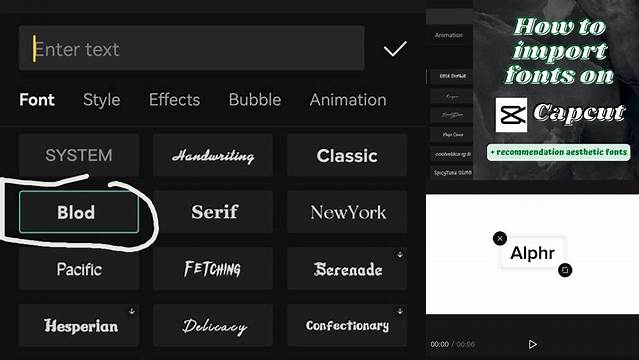
Best Fonts For CapCut Russian Videos: A Complete Guide
Hey guys! Are you looking to add some Russian flair to your CapCut projects? Choosing the right font can make all the difference, transforming your videos from ordinary to extraordinary. In this comprehensive guide, we'll dive deep into the world of fonts for CapCut Russian, exploring everything from font selection to installation and even some creative ideas. Let's get started and make your videos shine with the beauty of the Russian language!
Why Fonts Matter in Video Editing
Before we jump into specific fonts, let's take a moment to appreciate the crucial role fonts play in video editing. Fonts are more than just characters on a screen; they are visual storytellers. They convey emotions, set the tone, and enhance the overall message of your video. Think of it this way: a playful script font might be perfect for a fun travel vlog, but it would feel completely out of place in a serious documentary. The right font aligns with your video's theme and target audience, creating a cohesive and engaging viewing experience. For Russian-language content, selecting fonts that not only display Cyrillic characters correctly but also capture the essence of Russian culture and aesthetics is essential. Imagine using a generic, sans-serif font for a video about Russian history – it simply wouldn't do justice to the subject matter. The font should evoke a sense of authenticity and cultural richness. Furthermore, readability is paramount. A beautiful font is useless if your audience can't easily read the text. Consider the font size, spacing, and contrast against the background. Choose fonts that are clear and legible, even on smaller screens. Finally, consistency is key. Stick to a limited number of fonts throughout your project to maintain a professional and polished look. Mixing too many fonts can create visual clutter and distract viewers from your message. By carefully considering these factors, you can harness the power of fonts to elevate your video editing and create content that truly resonates with your audience.
Top Font Choices for CapCut Russian
Now, let's get to the exciting part: exploring the best font choices for your CapCut Russian projects! When selecting fonts, we need to consider not only their aesthetic appeal but also their readability and compatibility with the Cyrillic alphabet. Here are some top contenders, categorized for your convenience:
Serif fonts, characterized by the small strokes or "serifs" at the end of each character, often evoke a sense of tradition, elegance, and formality. They are excellent choices for projects that require a classic or sophisticated touch. One standout serif font for Russian is "Lora." Lora is a well-balanced and contemporary serif with roots in calligraphy, making it incredibly legible on screen. Its elegant curves and balanced weight lend a refined feel, perfect for documentaries, historical content, or videos that aim for a timeless aesthetic. Think of it as the go-to font for subtitles in a film adaptation of a classic Russian novel. Another worthy contender is "Playfair Display." This font exudes sophistication and grandeur, ideal for titles and headings. Its high contrast and delicate serifs create a visually striking effect, making it a great choice for opening credits, elegant presentations, or videos that require a touch of luxury. Imagine using Playfair Display for the title cards of a high-end fashion vlog showcasing Russian designers. However, remember that serif fonts can sometimes be less legible in smaller sizes or on lower-resolution screens, so always test them out before committing to them. Consider the overall design of your video and choose a serif font that complements your visual style and enhances readability. Ultimately, the right serif font can add a touch of class and sophistication to your Russian-language videos, making them more engaging and impactful.
Sans-serif fonts, known for their clean and minimalist design, are an excellent choice for modern and contemporary projects. They lack the serifs found in serif fonts, giving them a streamlined and legible appearance, especially on digital screens. For Russian content, several sans-serif fonts stand out for their clarity and compatibility with Cyrillic characters. "Open Sans" is a highly popular and versatile font that works well in a variety of contexts. Its neutral and friendly appearance makes it ideal for body text, captions, and subtitles. Open Sans is incredibly legible, even in smaller sizes, ensuring that your audience can easily read your Russian text. It’s a reliable choice for tutorials, explainer videos, and any content where clarity is paramount. Another excellent option is "Roboto." Roboto is a modern and geometric sans-serif font that offers a clean and professional look. It’s designed for optimal readability on screens, making it a great choice for website content, mobile apps, and, of course, video editing. Roboto's crisp lines and balanced proportions make it suitable for a wide range of projects, from tech reviews to educational videos. For a slightly bolder and more impactful sans-serif option, consider "Montserrat." Montserrat is a geometric sans-serif font inspired by the urban typography of Buenos Aires. Its strong character and clear letterforms make it a great choice for titles, headings, and call-to-actions. Montserrat can add a touch of modern sophistication to your Russian-language videos, making them stand out from the crowd. When choosing a sans-serif font for your CapCut Russian project, prioritize readability and ensure that the font complements the overall aesthetic of your video. A well-chosen sans-serif font can provide a clean and contemporary look, enhancing the visual appeal and clarity of your content.
Script Fonts
Script fonts, which mimic the flowing strokes of handwriting, can add a touch of elegance, personality, and warmth to your video projects. They are particularly effective for creating a personal and inviting feel, making them suitable for intros, outros, and special occasions. However, it’s crucial to use script fonts sparingly and strategically, as they can sometimes be less legible than serif or sans-serif fonts, especially in smaller sizes or with complex character sets like Cyrillic. When selecting a script font for your Russian videos, prioritize readability and ensure that the font’s style aligns with the overall tone and theme of your project. One captivating script font option for Russian is "Ruslan Display." This font exudes a sense of classic Russian elegance with its graceful curves and flowing letterforms. It’s perfect for adding a touch of sophistication to historical documentaries, cultural videos, or projects that aim to evoke a sense of tradition. Imagine using Ruslan Display for the title sequence of a video about Russian art or literature. Another beautiful script font to consider is "Sofia." Sofia is a modern and elegant script font that combines calligraphic elements with a contemporary flair. Its flowing lines and delicate details make it suitable for a variety of projects, from wedding videos to lifestyle vlogs. Sofia can add a touch of romance and sophistication to your Russian-language content. However, always remember the importance of legibility. Before committing to a script font, test it out in different sizes and contexts to ensure that your audience can easily read the text. Consider the background color, the amount of text, and the overall visual complexity of your video. Script fonts are best used for short phrases, titles, and headings, rather than lengthy paragraphs of text. When used effectively, script fonts can add a unique and personal touch to your Russian videos, making them more engaging and memorable.
Tips for Using Russian Fonts Effectively in CapCut